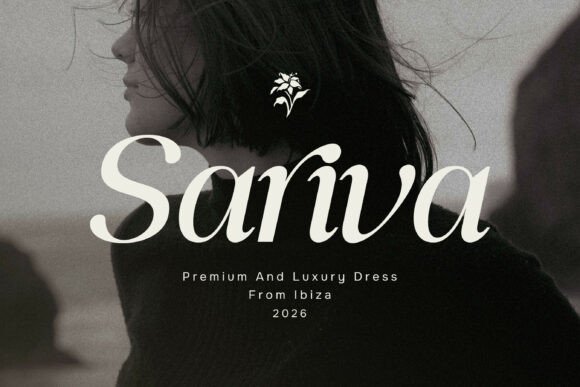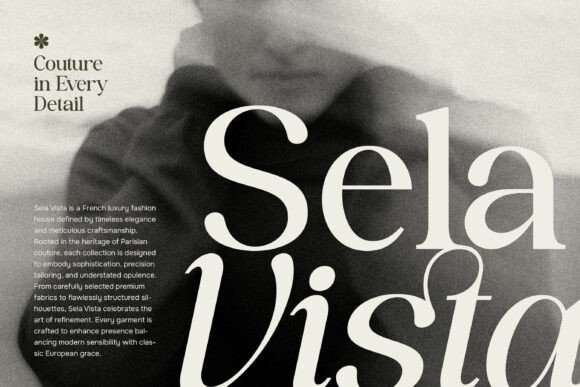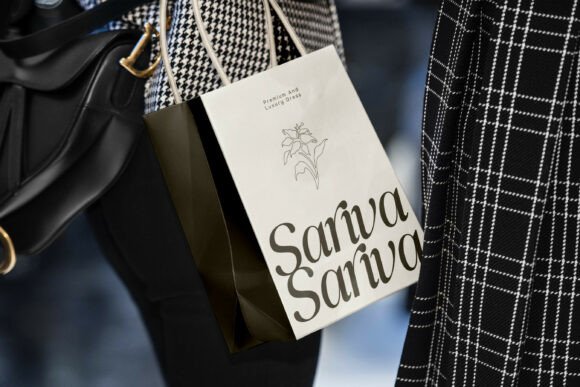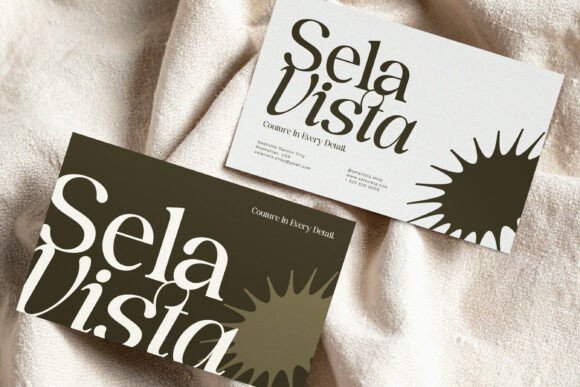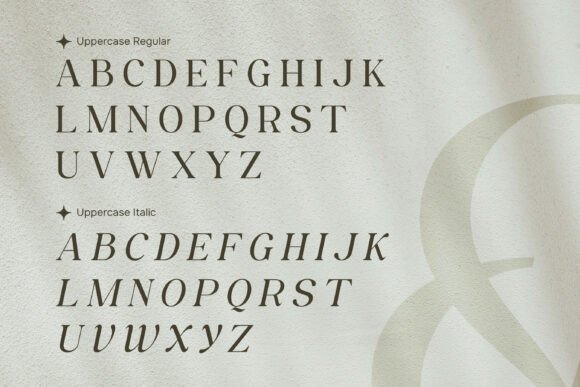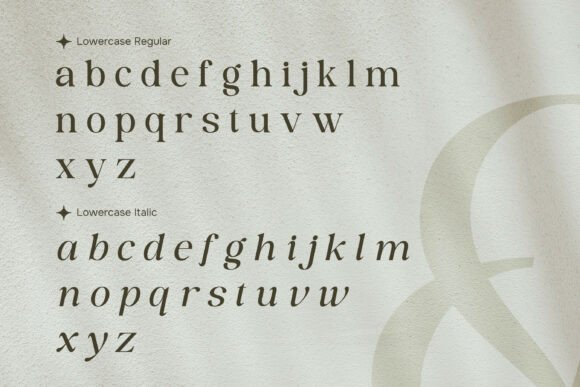
Introduction to Alera Blues Font
Alera Blues is a beautiful retro serif font inspired by classic vintage typography.
Featuring distinctive serif details, smooth curves, and balanced letterforms, Alera Blues brings a nostalgic charm that reflects the timeless character of retro design The font blends vintage aesthetics with a clean and refined structure, creating a style that feels both classic and visually appealing.